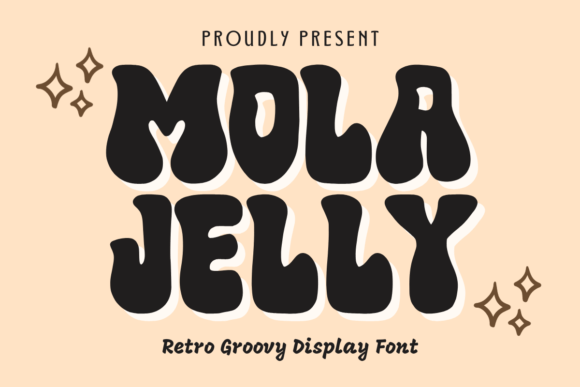
Feast your eyes on Mola Jelly Font, a remarkable display font that will transport you back in time and add a touch of retro charm to all your creative endeavors. This font, masterfully crafted by Minimalist Eyes, is an absolute gem for screen printing, ready to unleash its unique charm upon your designs.
Mola Jelly Font possesses an undeniable nostalgic appeal, capturing the essence of classic retro aesthetics. Its carefully crafted characters exude a tangible sense of vintage allure, perfect for evoking a bygone era in your design projects. From eye-catching posters and flyers to elegant logos and branding, Mola Jelly Font is the key to unlocking a world of retro delight.
But Mola Jelly Font is more than just a trip down memory lane. Its versatility extends far beyond the confines of nostalgia. This remarkable font is a font that knows no bounds, seamlessly adapting to a myriad of design styles and concepts. Its limitless potential allows you to manifest your wildest creative ideas, whether you seek a playful and whimsical touch or a touch of vintage elegance.